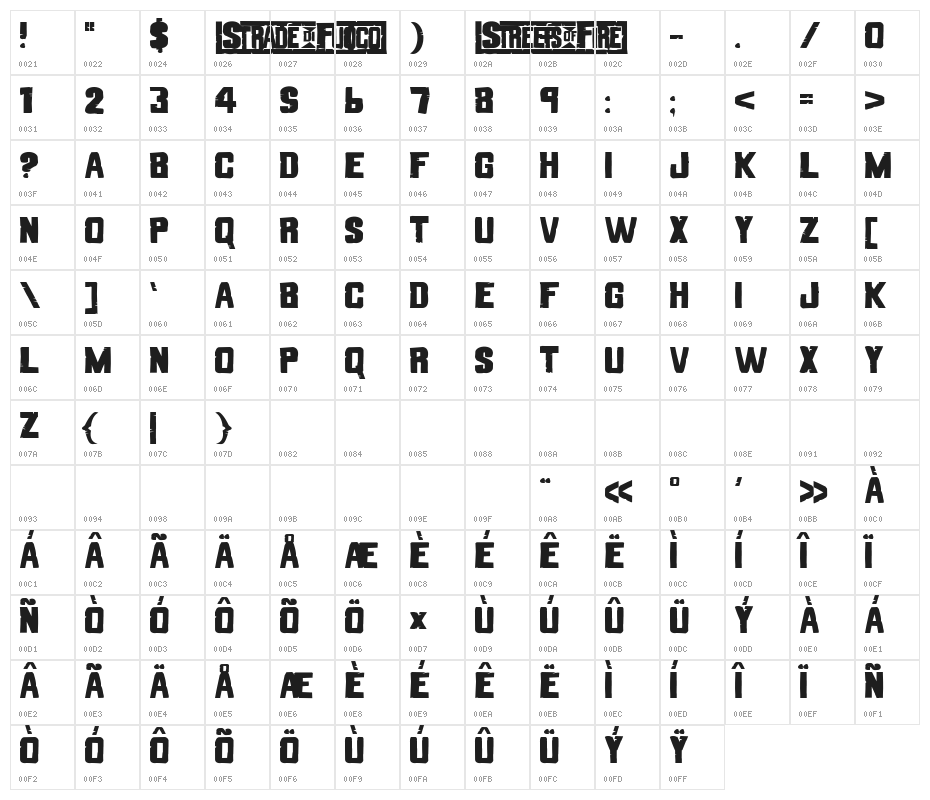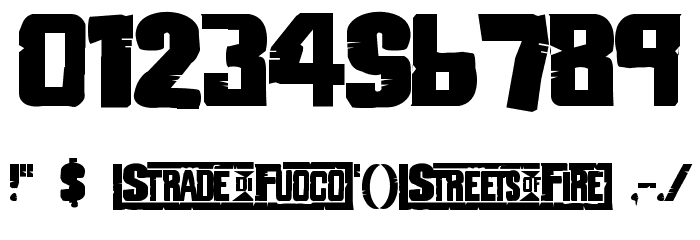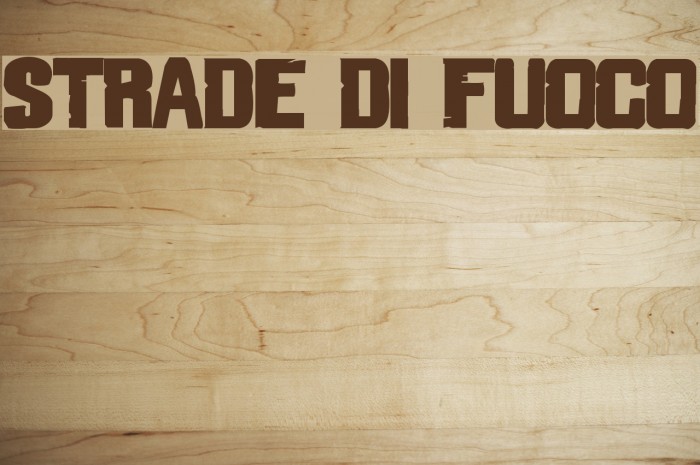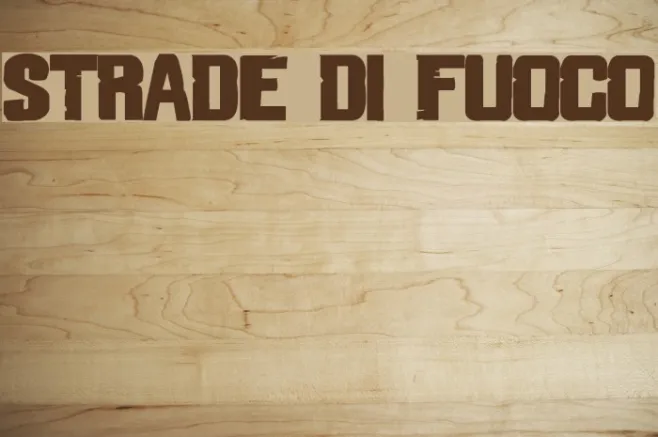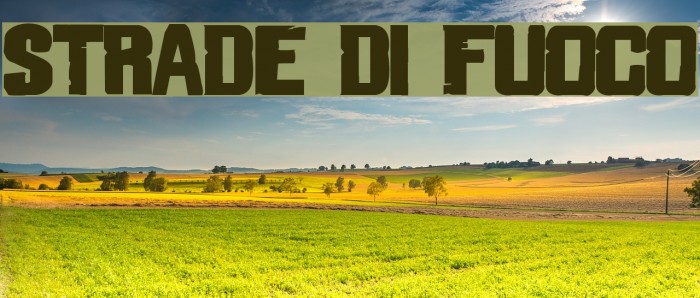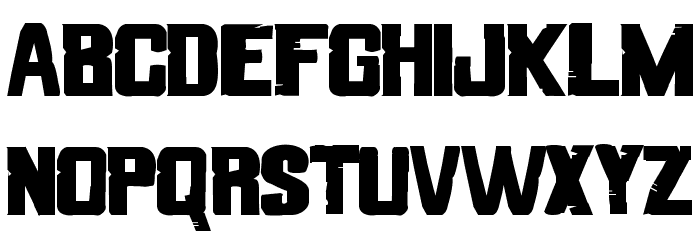
Strade di Fuoco Font
✎ Distorted Eroded
| Stile generale | Urban, Industrial, Edgy |
| Progetti proposti | Ideal for posters, album covers, video game graphics, and branding that requires a strong, edgy look. |